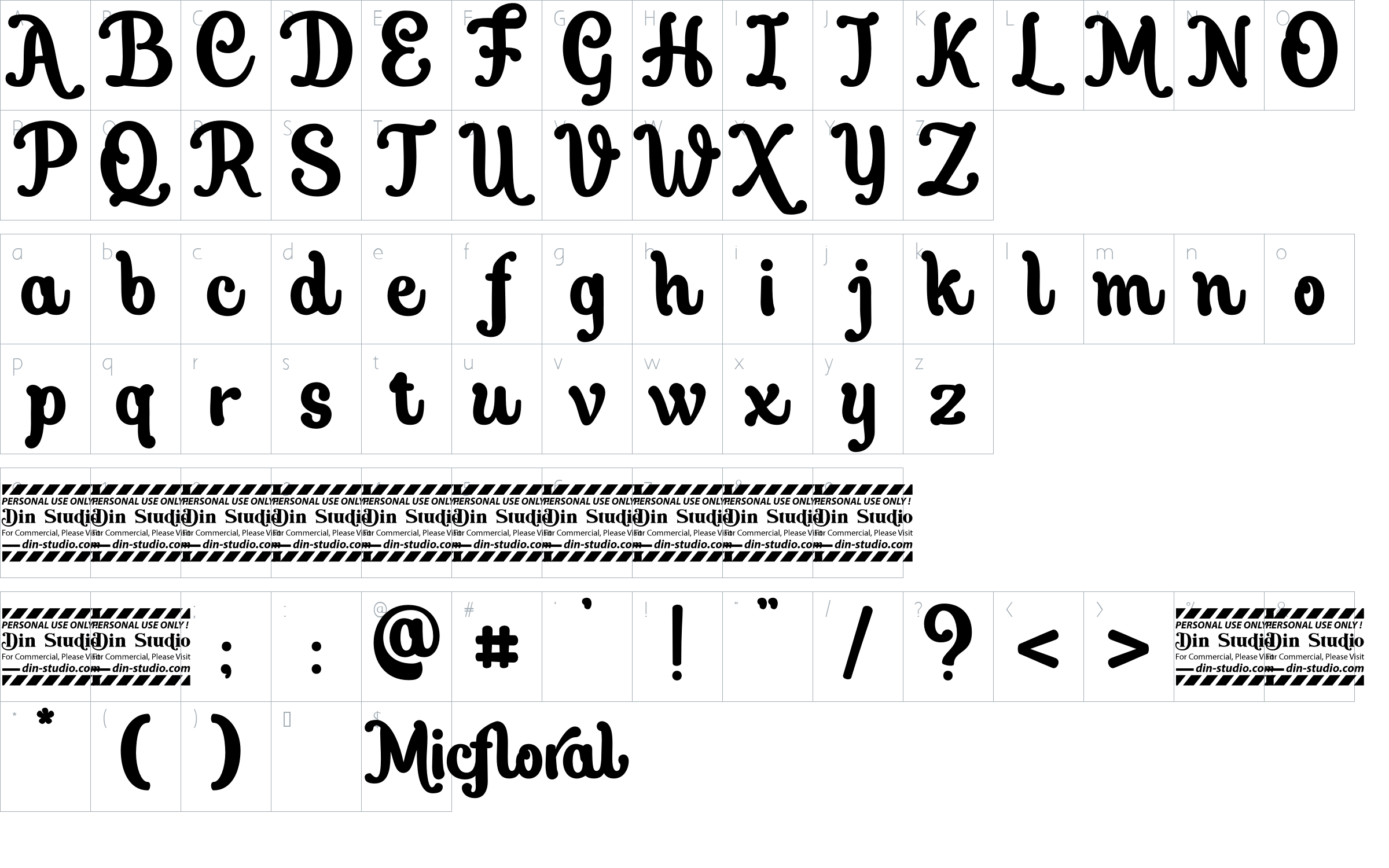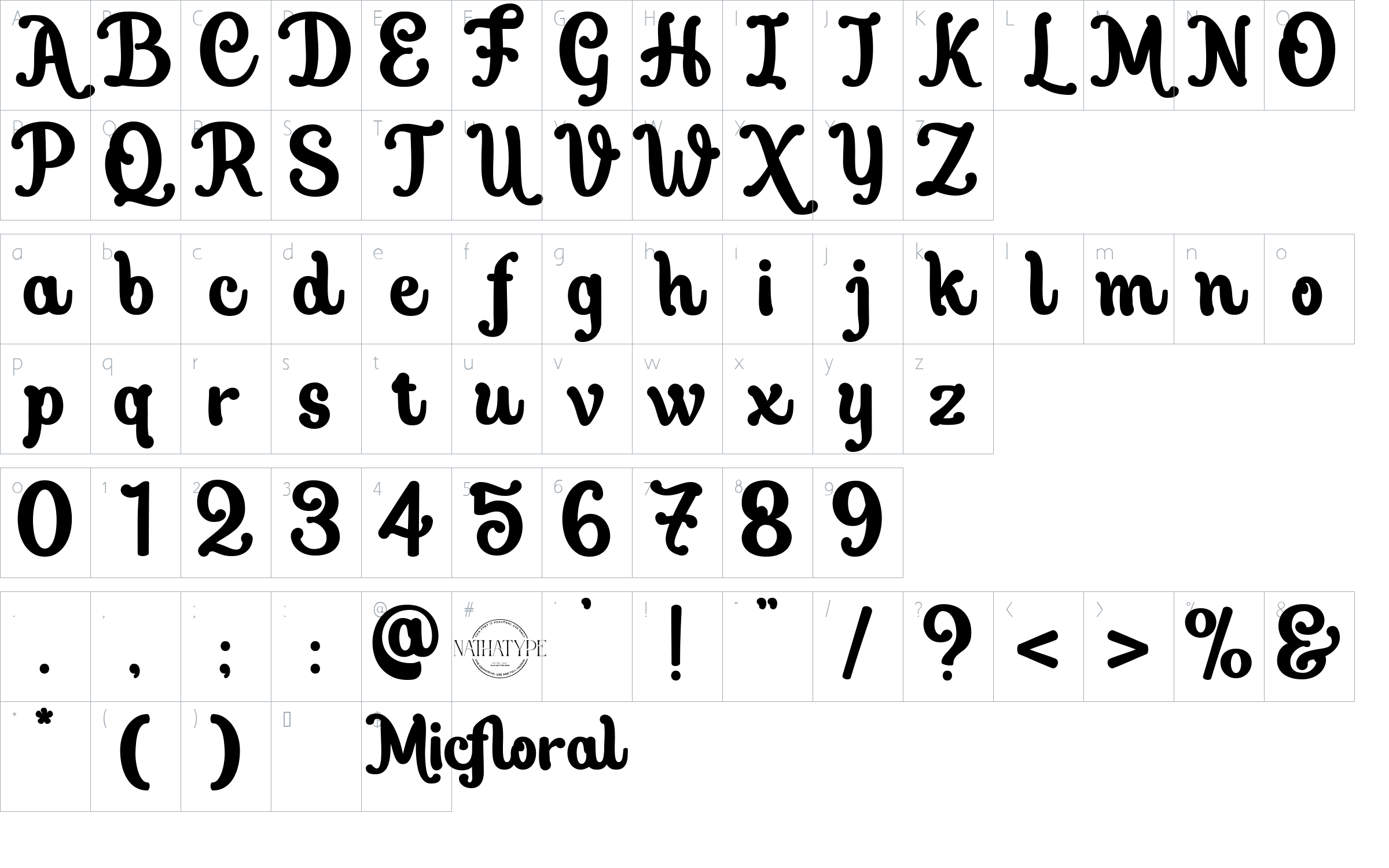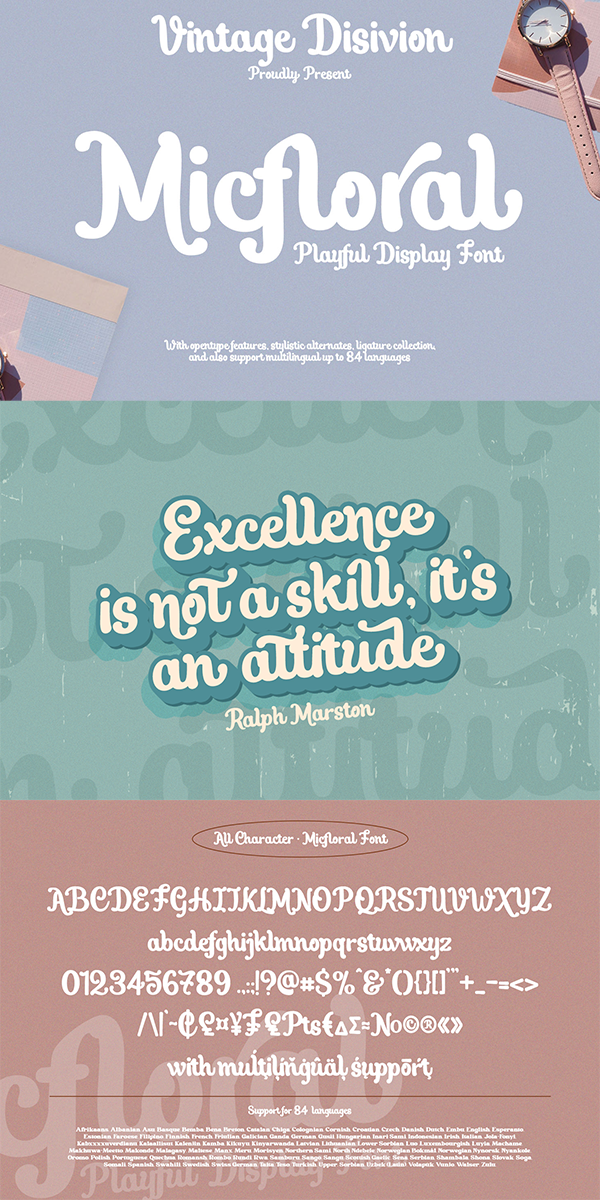
Micfloral Font
About Micfloral
Micfloral – A Display Font
Micfloral is perfectly designed for playfulness and refinement balance. This display font delivers your message with style. Use it for social media branding projects, book cover, fashion designs, printed quotes, packagings, or even as a stylish text overlaying any background images.